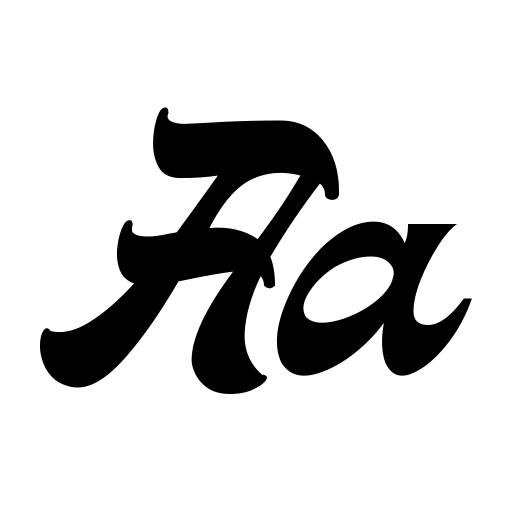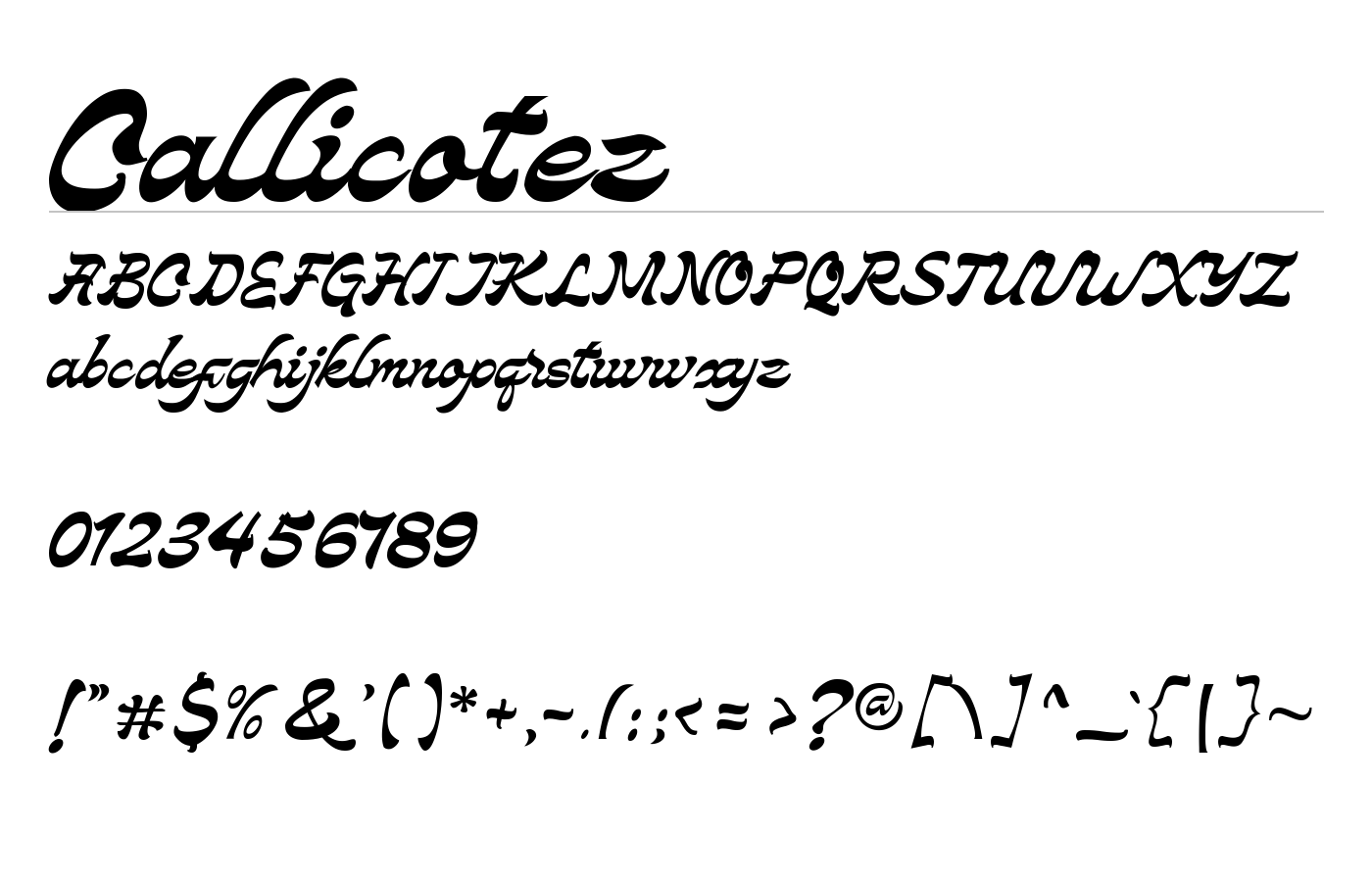
Callicotez is a lively script font with a bold, brush-like design that exudes a playful yet confident personality. Its smooth, rounded strokes and slightly condensed letterforms make it ideal for eye-catching headlines, logos, and branding that seek a dynamic, artistic flair. This font works especially well for creative projects and packaging where a handcrafted, energetic vibe is desired.
Callicotez Font